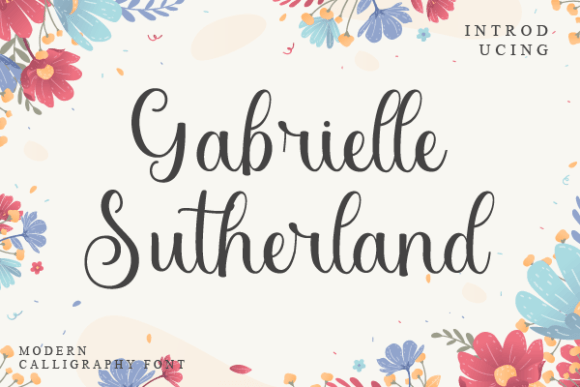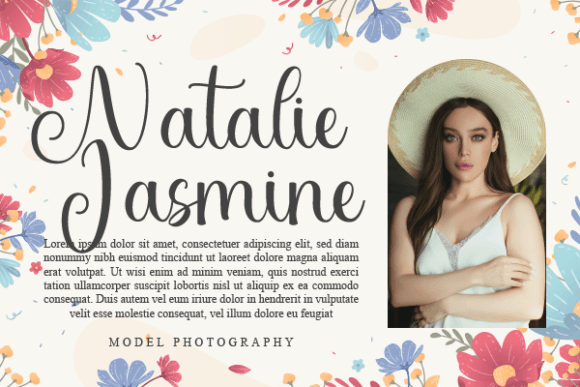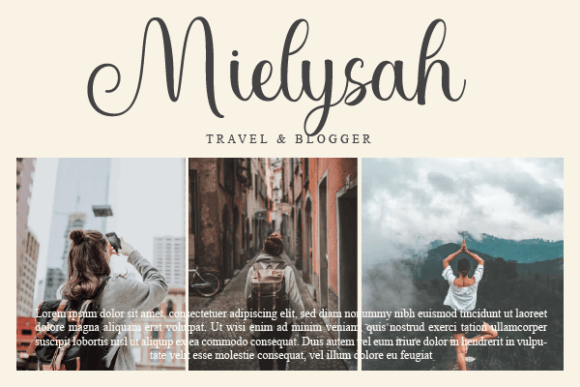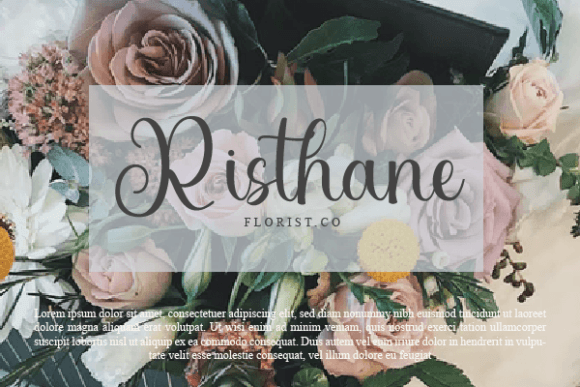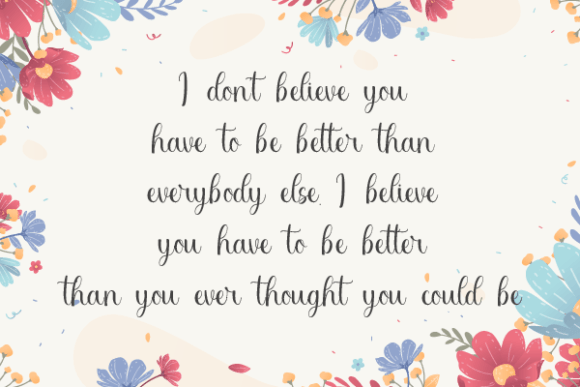
Gabrielle Sutherland Font
About Gabrielle Sutherland Font
Gabrielle Sutherland’s latest style letters bring a perfect blend of elegance and versatility to your design projects. This font is an excellent choice for a wide range of applications, making it well-suited for wall displays, wedding invitations, social media posts, logos, advertisements, product packaging, product designs, labels, photography watermarks, invitations, stationery, and any project that benefits from a handwritten touch.
In wall displays, Gabrielle Sutherland’s latest style letters can add a touch of sophistication and uniqueness. The elegant script contributes to creating visually appealing and personalized art installations.
For wedding invitations, the font’s style letters bring a sense of romance and grace. The handwritten taste enhances the overall aesthetic, setting the tone for a special and memorable occasion.
In social media posts, logos, and advertisements, Gabrielle Sutherland’s latest style letters stand out with their versatility. Whether used for promotional content or brand identity, the font adds a touch of elegance and individuality to the visual representation.
Product packaging and designs benefit from the font’s handwritten charm. It can contribute to creating a distinct and memorable brand image, adding a personal and artisanal feel to the products.
In labels, photography watermarks, invitations, and stationery, the font provides a cohesive and stylish look. Its ability to convey a handwritten taste adds a level of authenticity and warmth to these materials.
The adaptability of Gabrielle Sutherland’s latest style letters makes it a valuable asset for various creative endeavors. Whether applied to printed materials or digital platforms, this font enhances the overall visual appeal, making it a versatile and stylish choice for a broad spectrum of design projects.